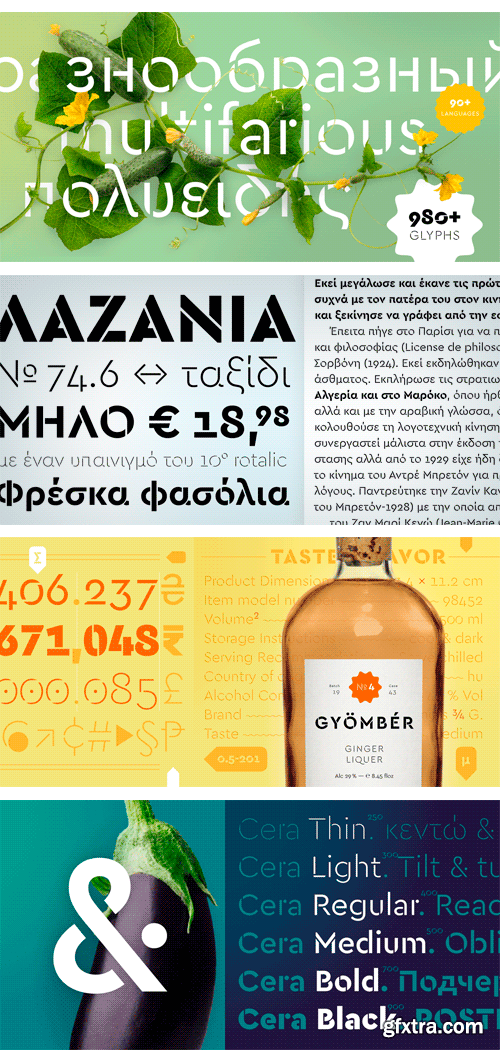
Cera Stencil PRO Font Family
- The pan-European typeface – designed between 2013-2015 – is supporting pure geometry plus Latin, Cyrillic and Greek script. With over 980 glyphs per weight Cera Stencil PRO cares about localized letter shapes plus ordinals and provides matching OpenType Features. Equipped with six precise weights and useful dingbats plus arrows, Cera Stencil PRO is a good companion for setting clean but interesting headlines in multiple languages and all its facets.